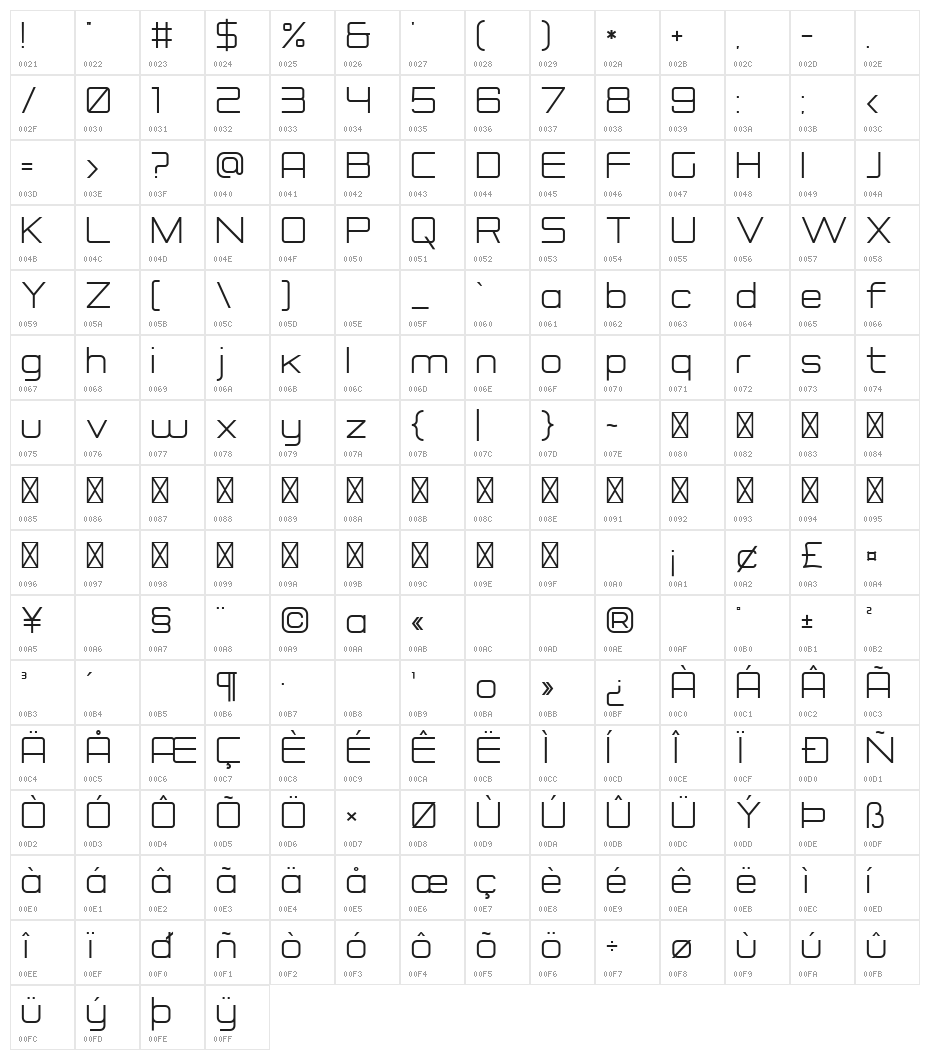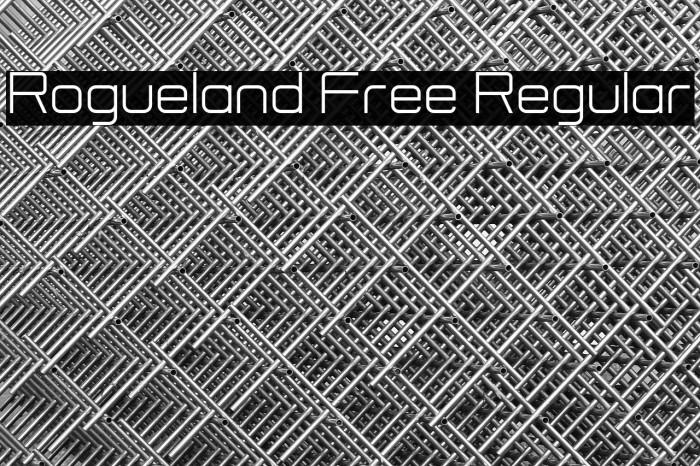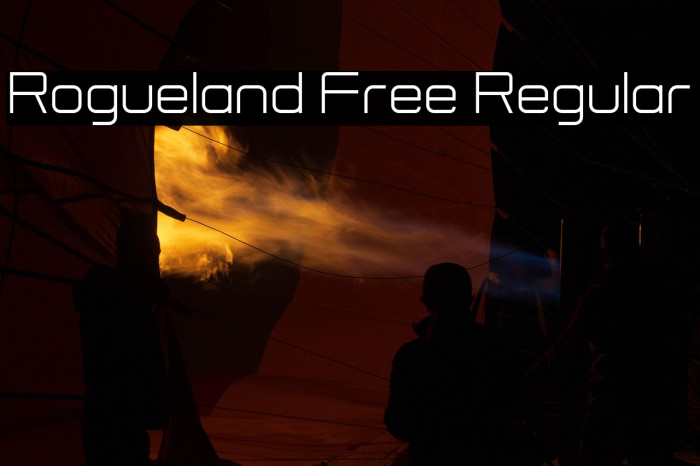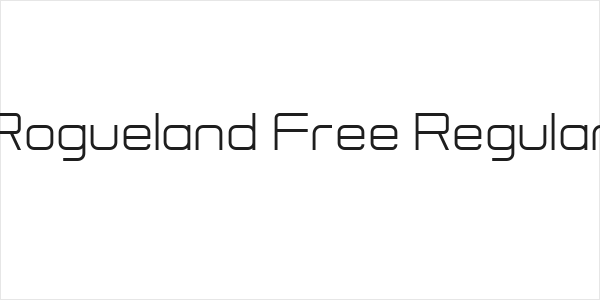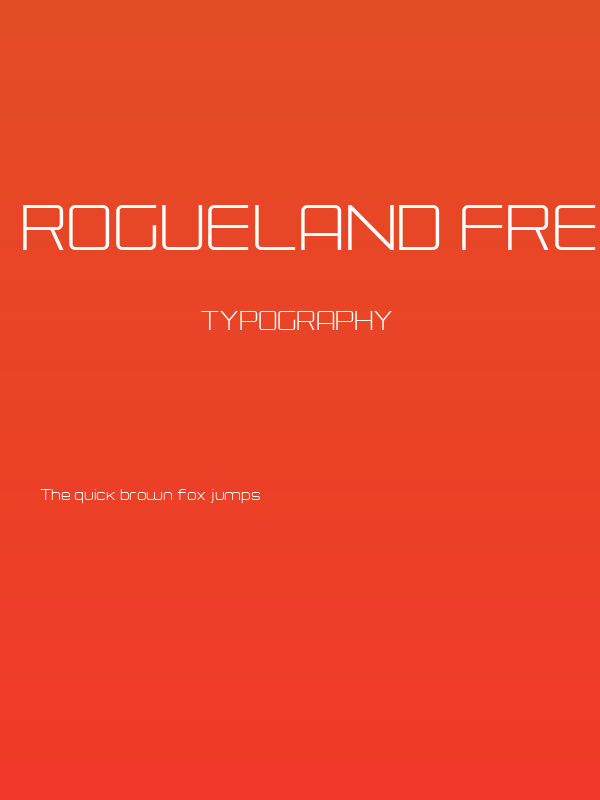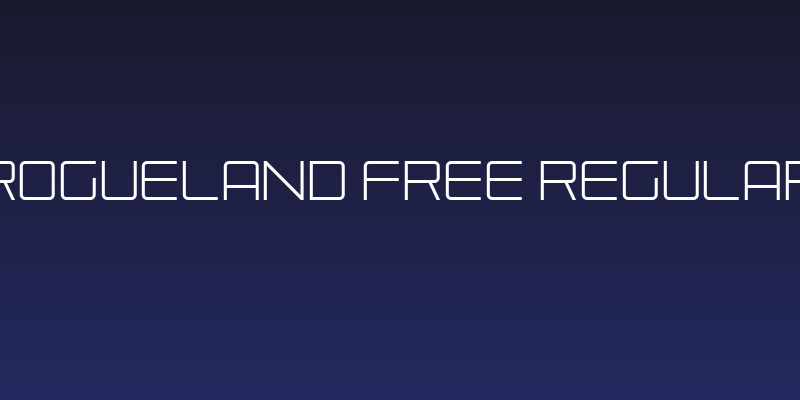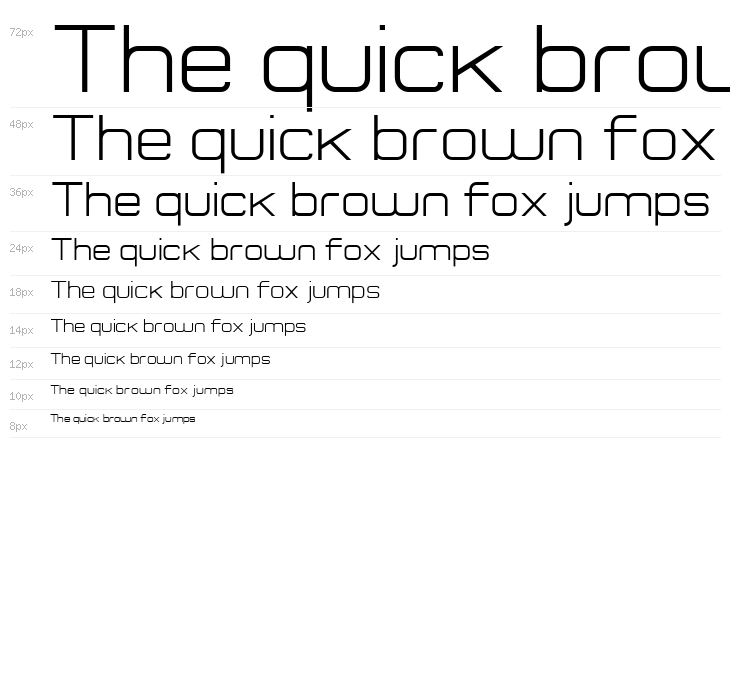
Rogueland Free Regular Font
Rogueland Free Regular Description
This font features a modern, geometric design with clean, straight lines and rounded corners. The characters are uniform in width, giving it a monospaced appearance, although it is not strictly monospaced. The uppercase letters are bold and striking, while the lowercase letters maintain a consistent style with a slightly softer touch. The numerals are clear and easy to read, matching the overall aesthetic of the font. Special characters are designed to complement the alphanumeric characters, maintaining the same geometric and minimalist style.
| Proposed Projects | Ideal for tech-related branding, modern web design, and minimalist posters. |